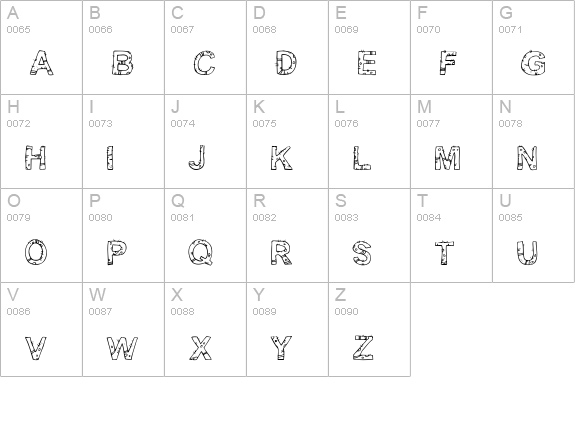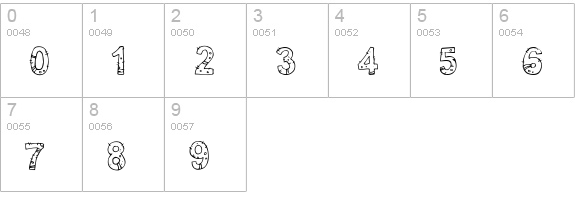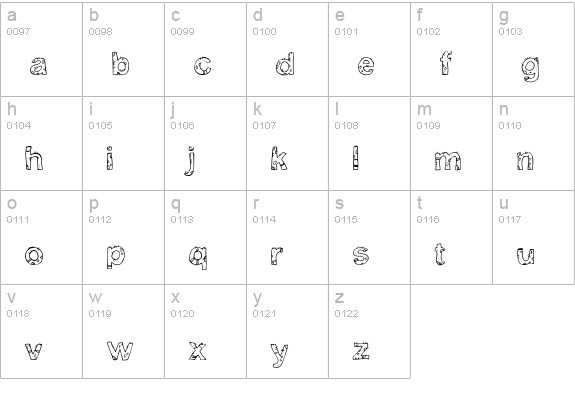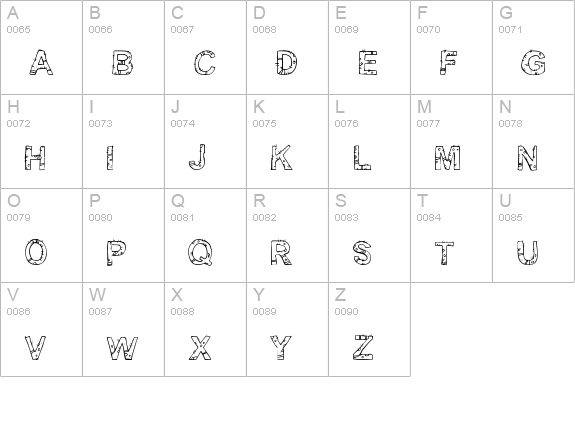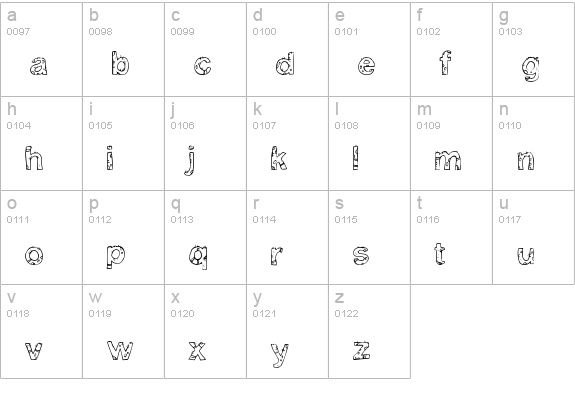
Yugly font is a unique typeface that exudes a playful and quirky charm. With its irregular shapes and whimsical design, Yugly font is sure to make your text stand out and capture attention. This font is perfect for creative projects, branding, and any design that calls for a touch of fun and originality. Best of all, Yugly font is available for free download at FontsMarket.com. Simply visit the website to access this delightful font and add a touch of personality to your designs without spending a penny. Don't miss out on the opportunity to enhance your projects with the charming Yugly font - download it for free today!